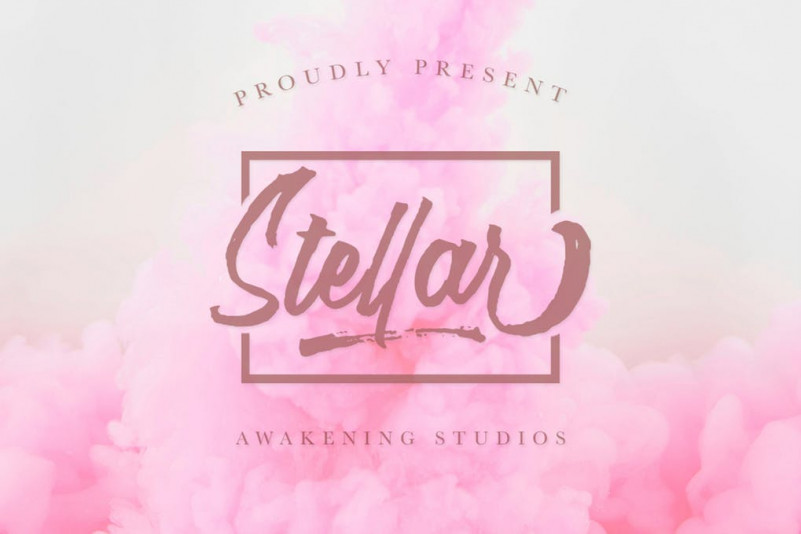
Stellar Font
Stellar Brush Font is a brush script typeface made to give a realistic hand drawn look to your typographic work. Use Stellar Brush font typeface to make logo marks, posters, t-shirt designs or anything that requires that personal touch. To add extra value to the font I’ve made sure that it also works amazingly when you use all the characters in uppercase.